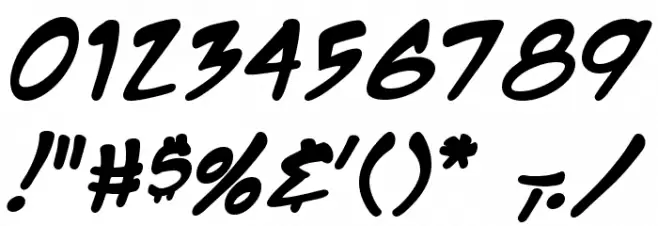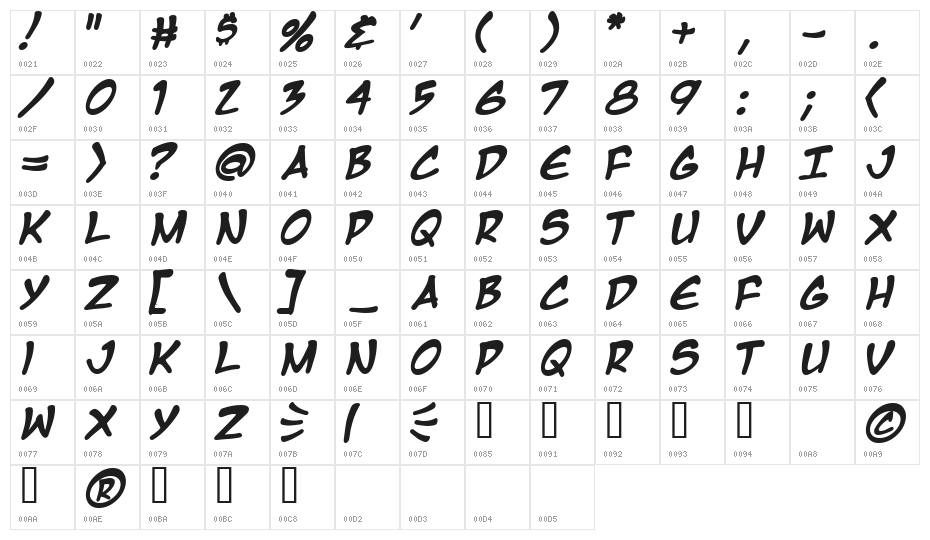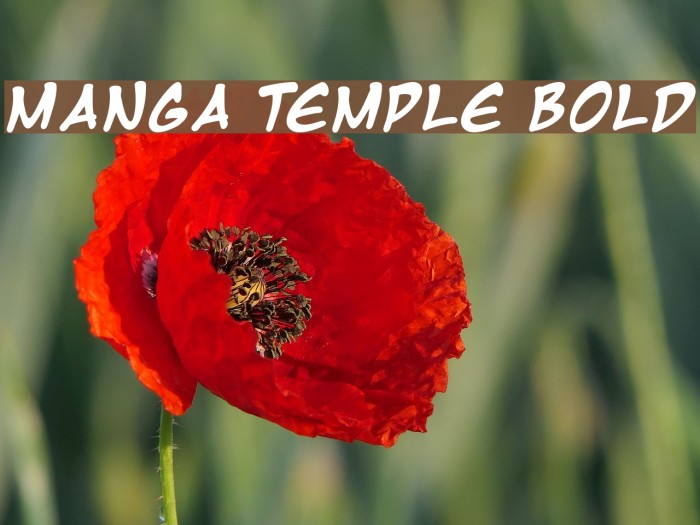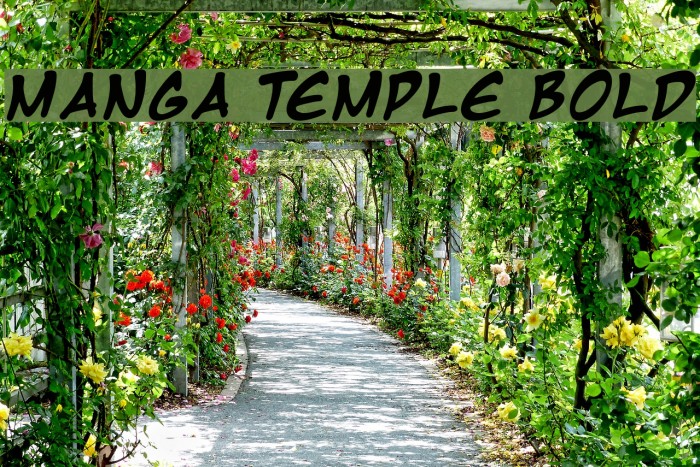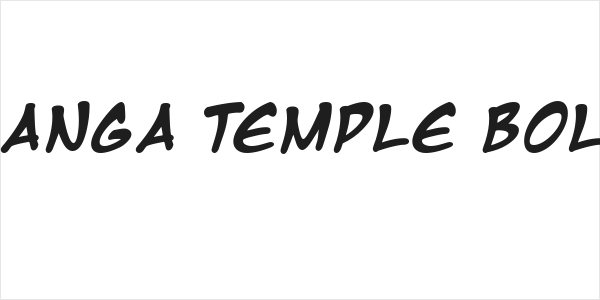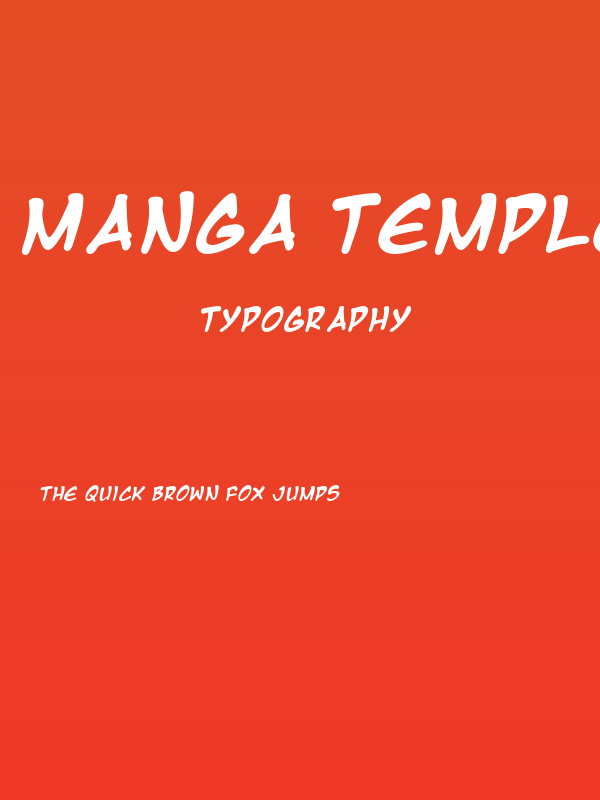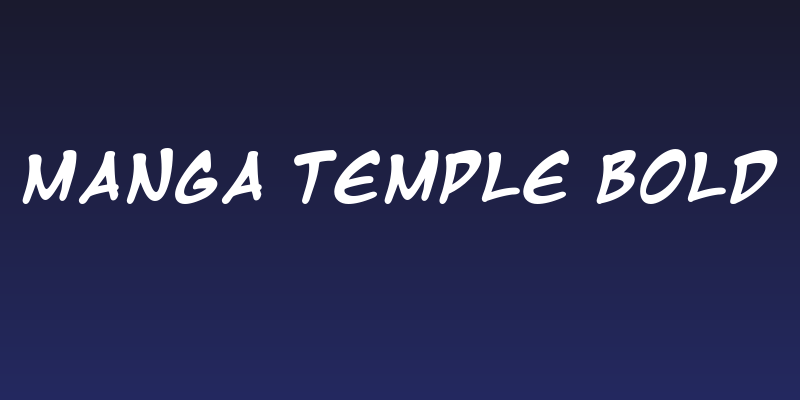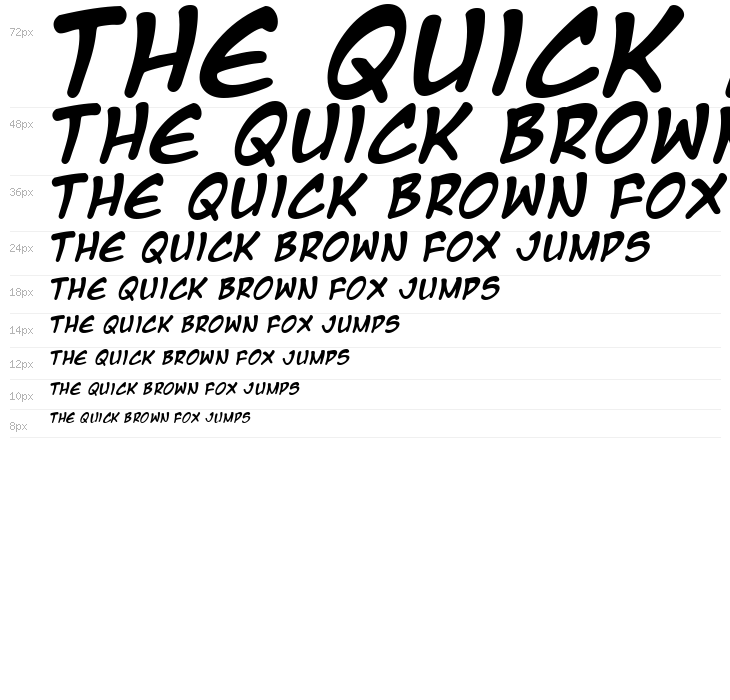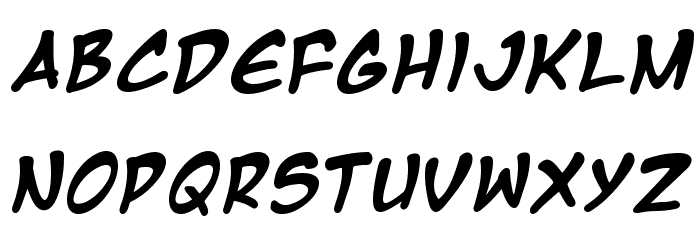
Manga Temple Bold Font
Manga Temple Bold Description
This font features a bold and dynamic style with a handwritten appearance, characterized by its fluid and slightly slanted letterforms. The strokes are thick and consistent, giving it a strong presence on the page. The uppercase and lowercase letters maintain a cohesive look, with rounded edges and a playful, energetic vibe. The numbers and special characters follow the same design principles, ensuring uniformity across all glyphs. This font is ideal for projects that require a lively and informal touch, making it suitable for creative and artistic applications.
| Proposed Projects | Great for comic books, posters, branding, and creative design projects. |